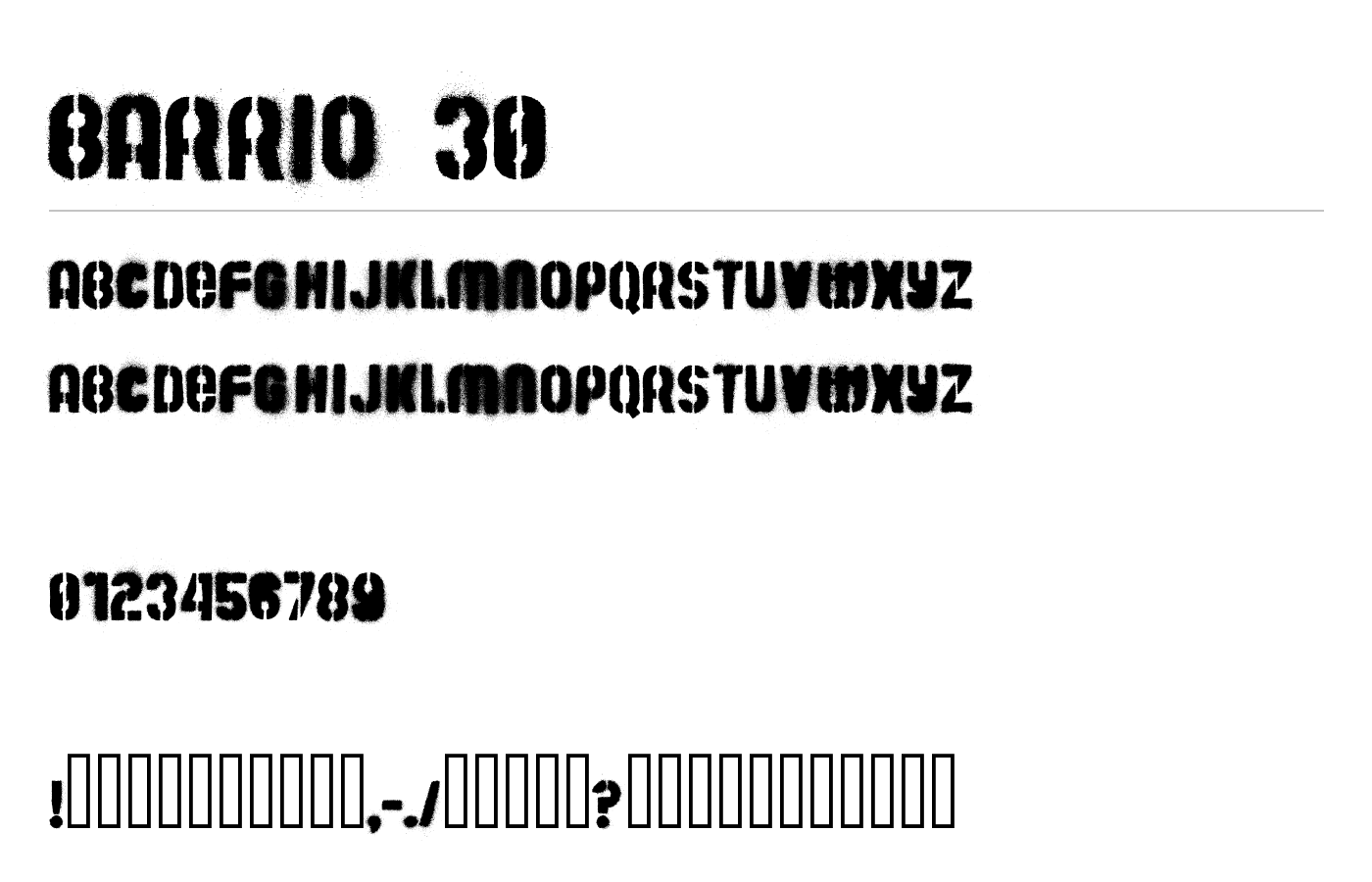
Barrio 30 is a bold, condensed stencil sans-serif font with a distinct urban, gritty character, featuring thick strokes interrupted by stencil gaps that give it a dynamic, industrial feel. Its uppercase and lowercase letters share a uniform, heavy weight with low contrast, making it ideal for impactful headlines, posters, and branding that requires a strong, streetwise personality. This font works best in settings that call for an edgy, modern vibe with a touch of rebellious style.
Barrio 30 Font
About Barrio 30 Font